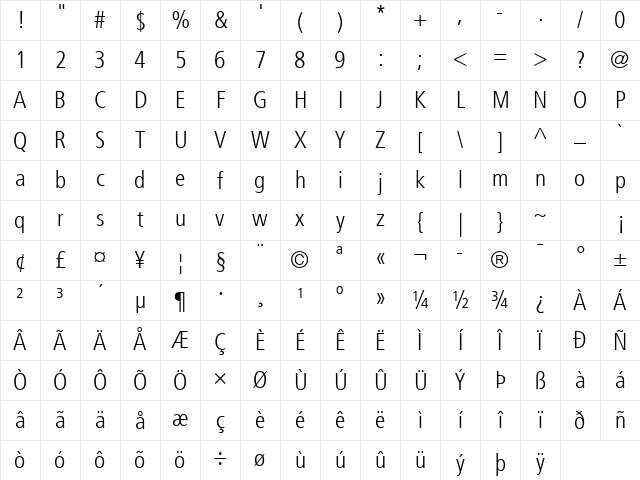
Frutiger LT Com 47 Light Condensed
Style: 47 Light Condensed
Frutiger LT Com Family
Design Context for Frutiger LT Com
Frutiger LT Com is a composed and adaptable typeface that performs quietly and consistently across a wide range of design contexts. Its slender proportions lend an understated elegance to any composition. Its narrow stance lets it pack a punch even in space-constrained designs.